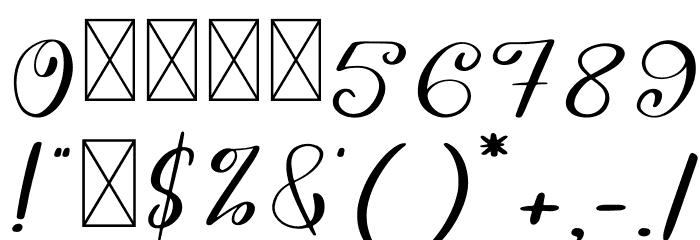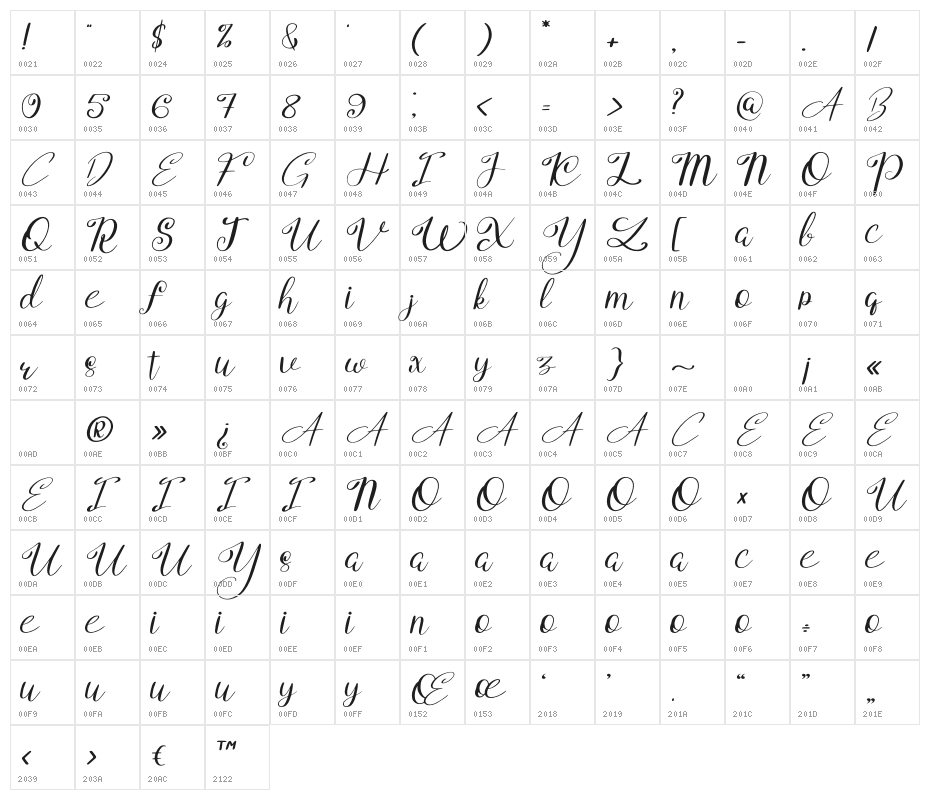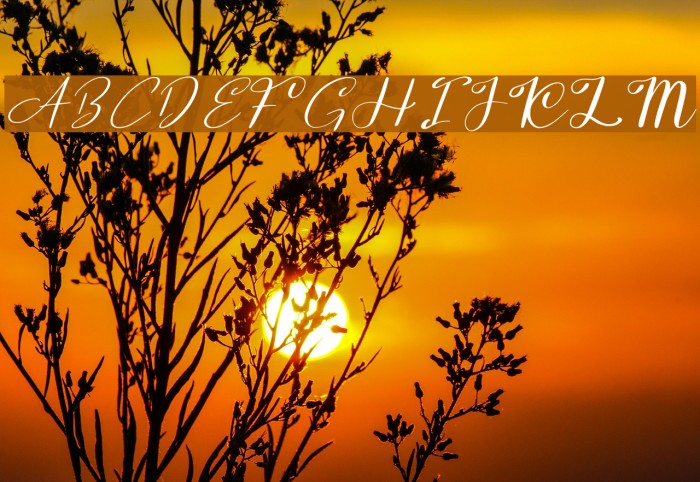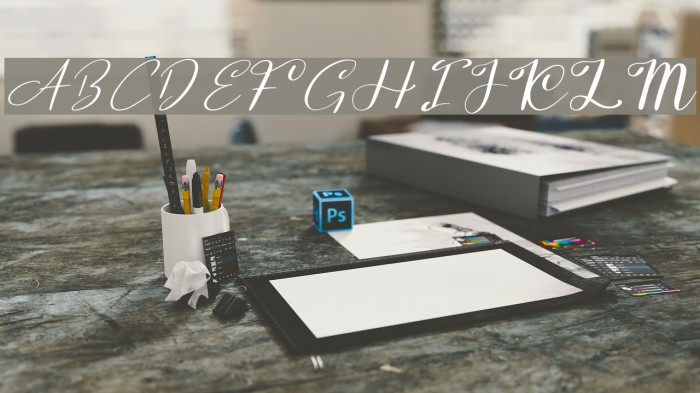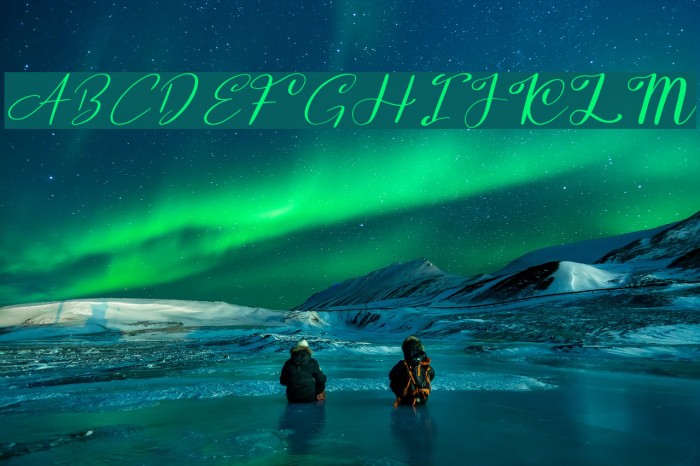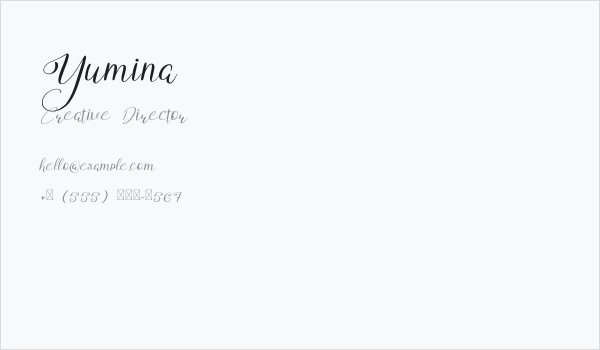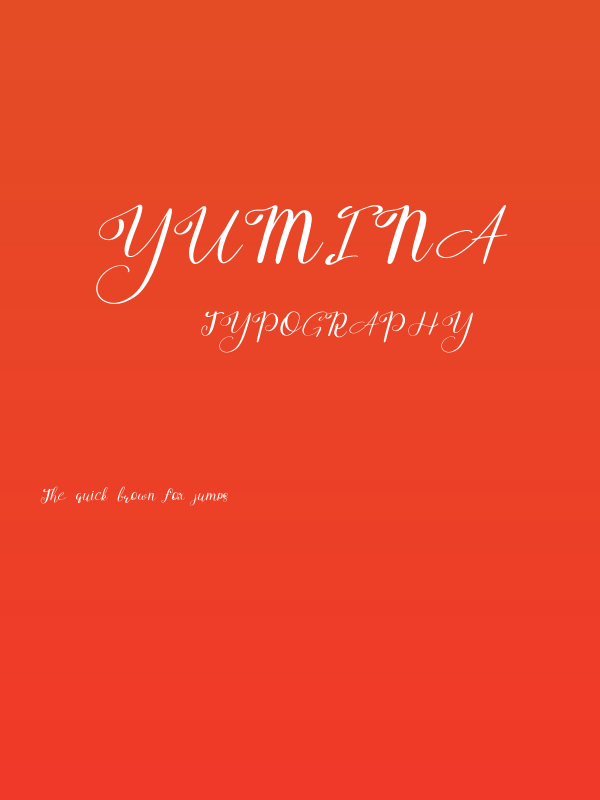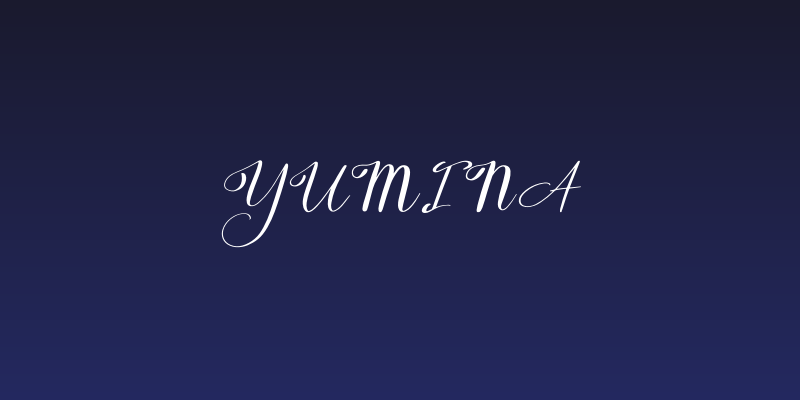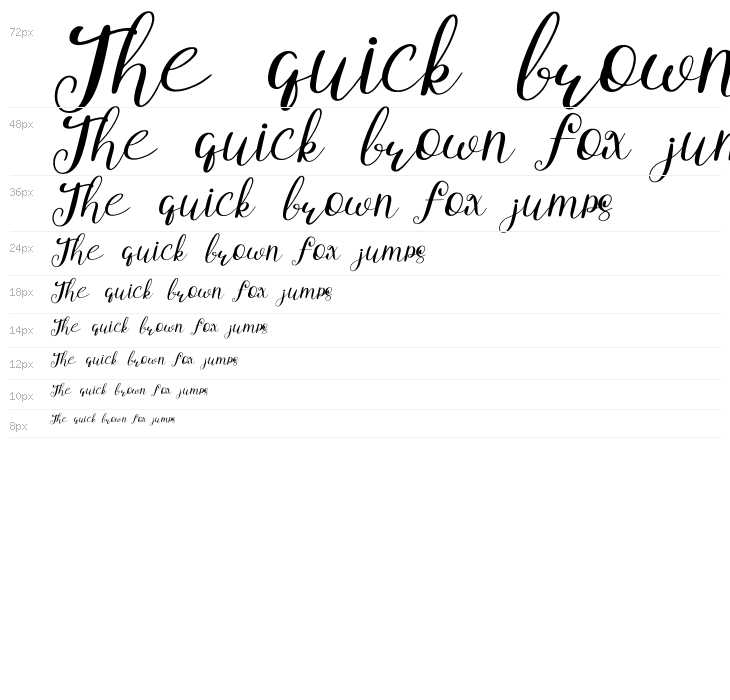
Yumina Font
Yumina Description
This font features an elegant and flowing script style, characterized by its smooth, cursive letterforms. The uppercase letters are slightly more ornate, with flourishes that add a touch of sophistication. The lowercase letters maintain a consistent flow, enhancing readability while retaining a stylish appearance. The numbers and special characters are designed to match the overall aesthetic, with a graceful and cohesive look. The font's design is well-suited for projects that require a touch of elegance and class, making it ideal for invitations, branding, and decorative purposes.
| Proposed Projects | Ideal for wedding invitations, branding, greeting cards, and decorative projects. |